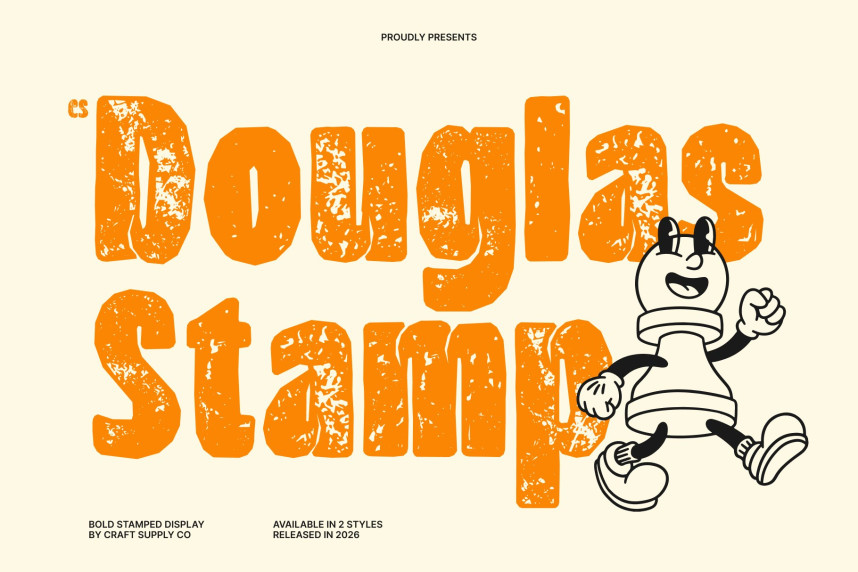
CS Douglas Stamp Font
CS Douglas Stamp Font – Bold Inktrap Sans with Vintage Print Texture
Modern Strength with Authentic Stamp Character
This is a bold sans-serif font featuring sharp inktrap details and a distinctive stamped texture that gives every letter a tactile, printed feel. The strong geometric structure remains powerful and confident, while the stamp effect introduces subtle imperfections that add warmth, depth, and visual authenticity.